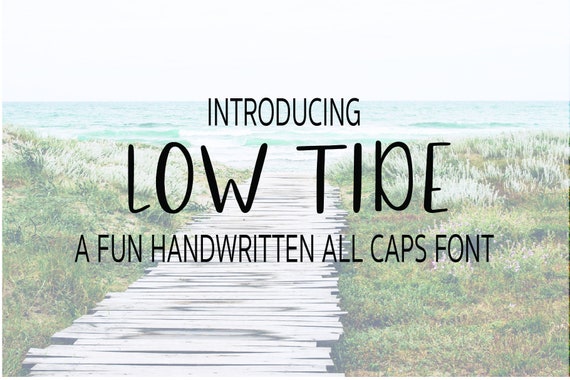
Low Tide All Caps Font, Handwritten Font
Low Tide is an all-caps hand-lettered font. Its casual style makes it perfect for logos, branding, greeting cards, prints, social media graphics, home decor & more.
Low Tide includes:
- uppercase characters
- numbers + punctuation